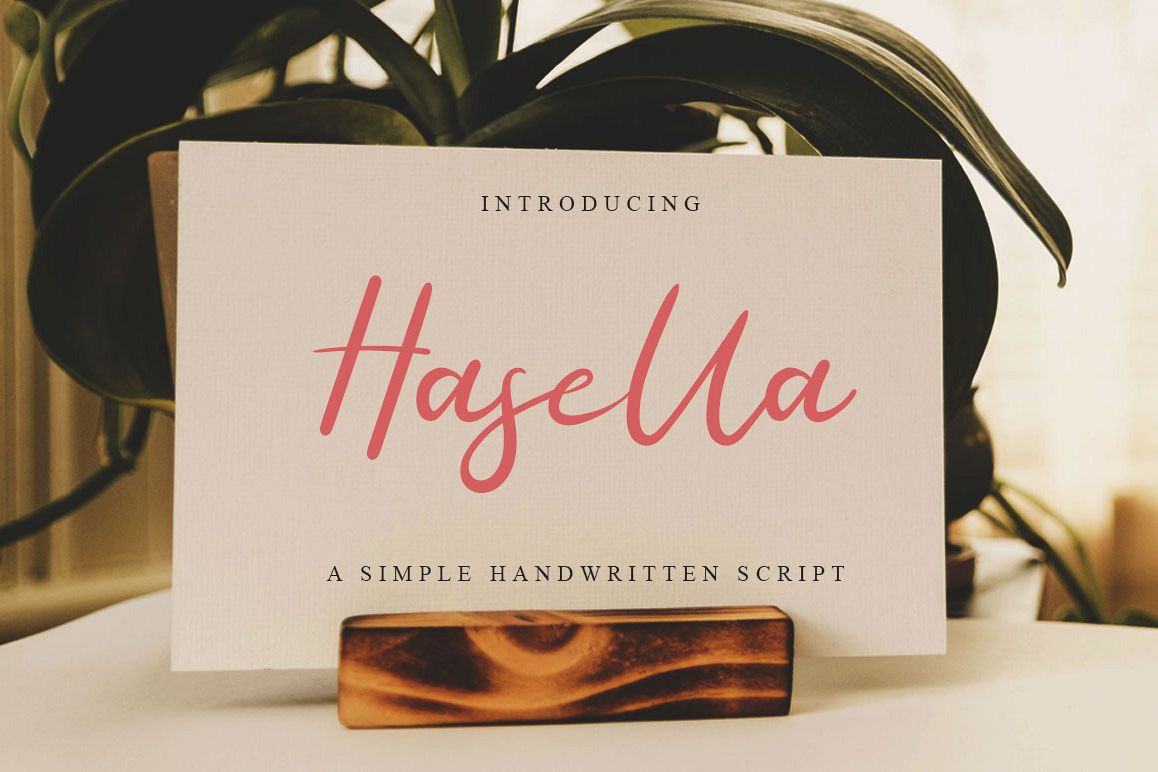
Hasella Simple Script
"Hasella" is a hand lettered font style that is perfect
for greeting cards, branding, stationery design, social media,
packaging, magazine layouts, prints, logos and more!
This
unique font features complete lowercase alphabets and uppercase alphabets along with a few other ligatures to create a truly handwritten look and feel.
"Hasella" has a variety of unique, coded features to create compelling, handmade outcomes.
• UpperCase & Lowercase
• Numerals & Punctuations
• Multilingualcharacters(AÀÁÂÃÄÅCÇDÐEÈÉÊËIÌÍÎÏNÑOØÒÓÔÕÖUÙÜÚÛWYÝŸŸ ÆŒßÞàáâãäåæçèéêëìíîïðñòóôõöøùúûüýÿ)